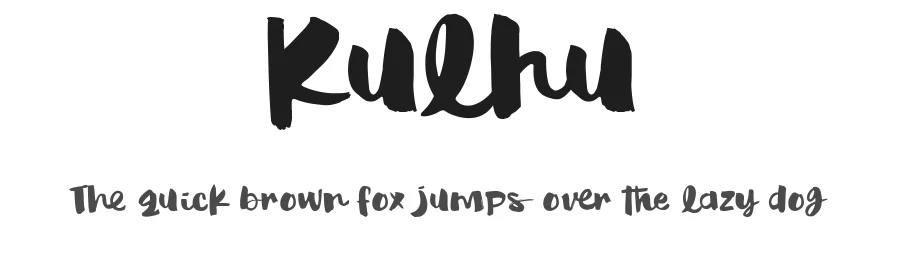
About Kulhu One Font
Kulhu One Font is a script font that shines as a display or heading face. Pair it with a clean sans-serif or serif font for body text β the contrast creates a clear hierarchy while the two styles stay balanced and easy to read.
Kulhu One Font